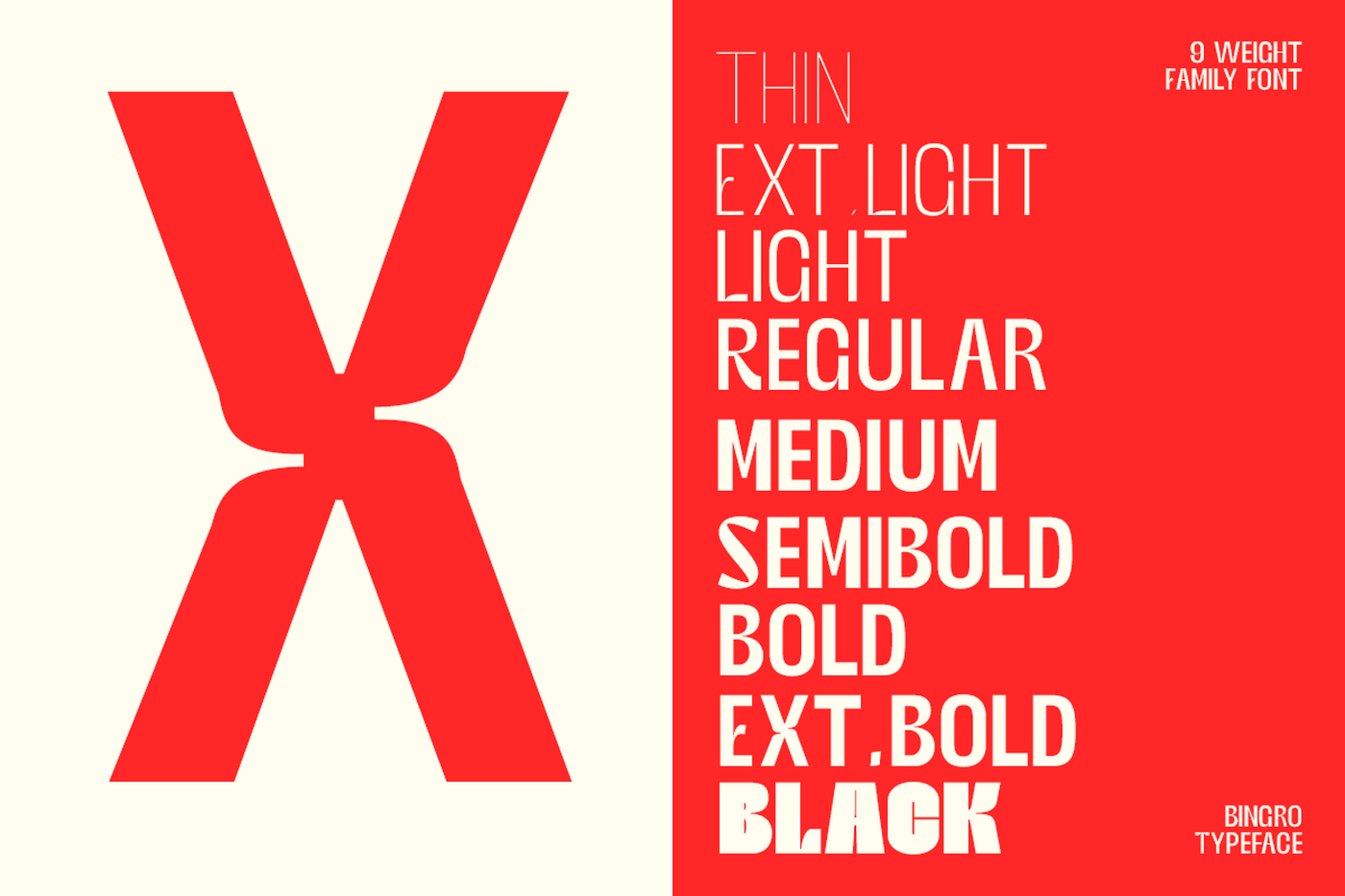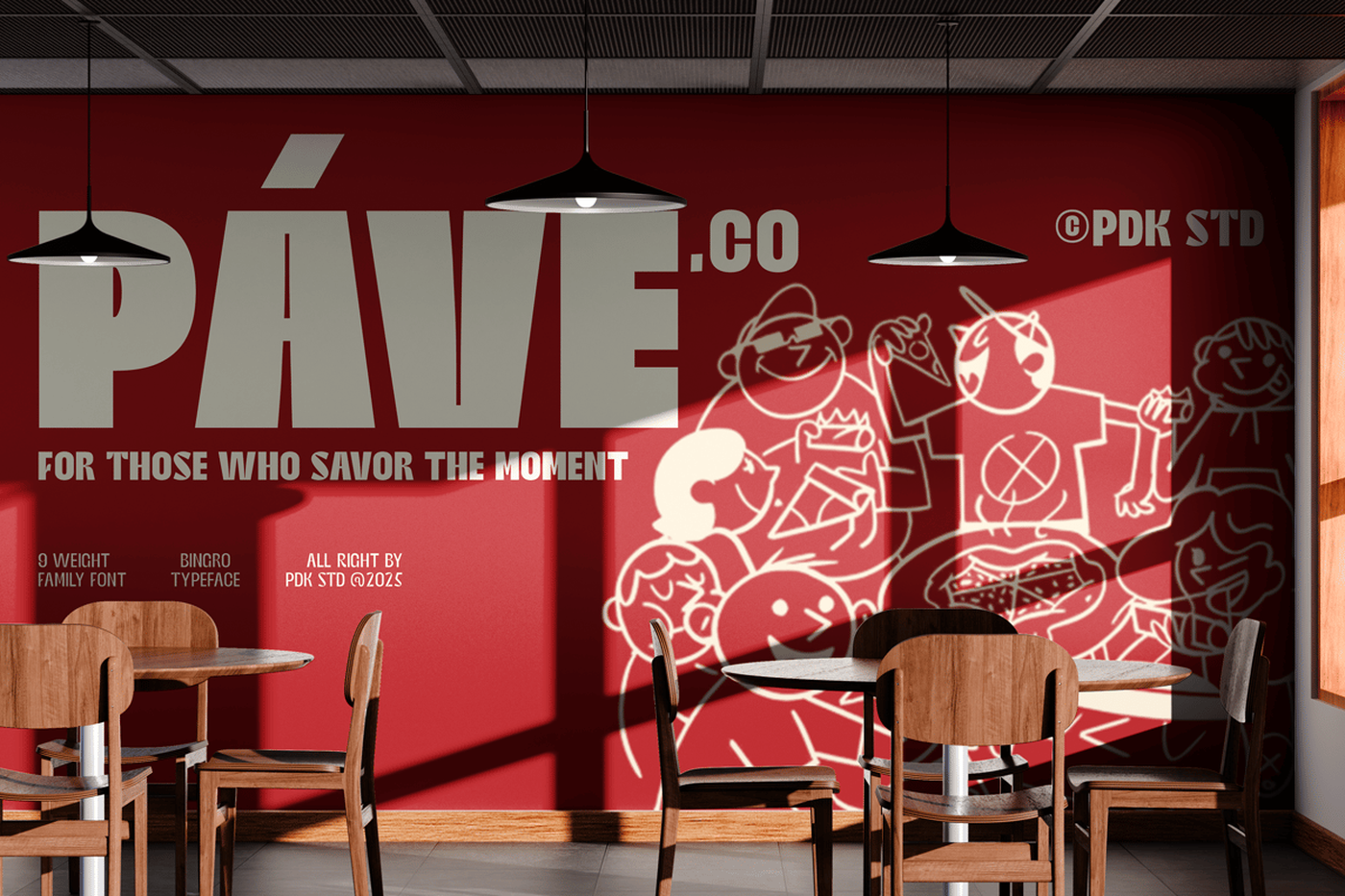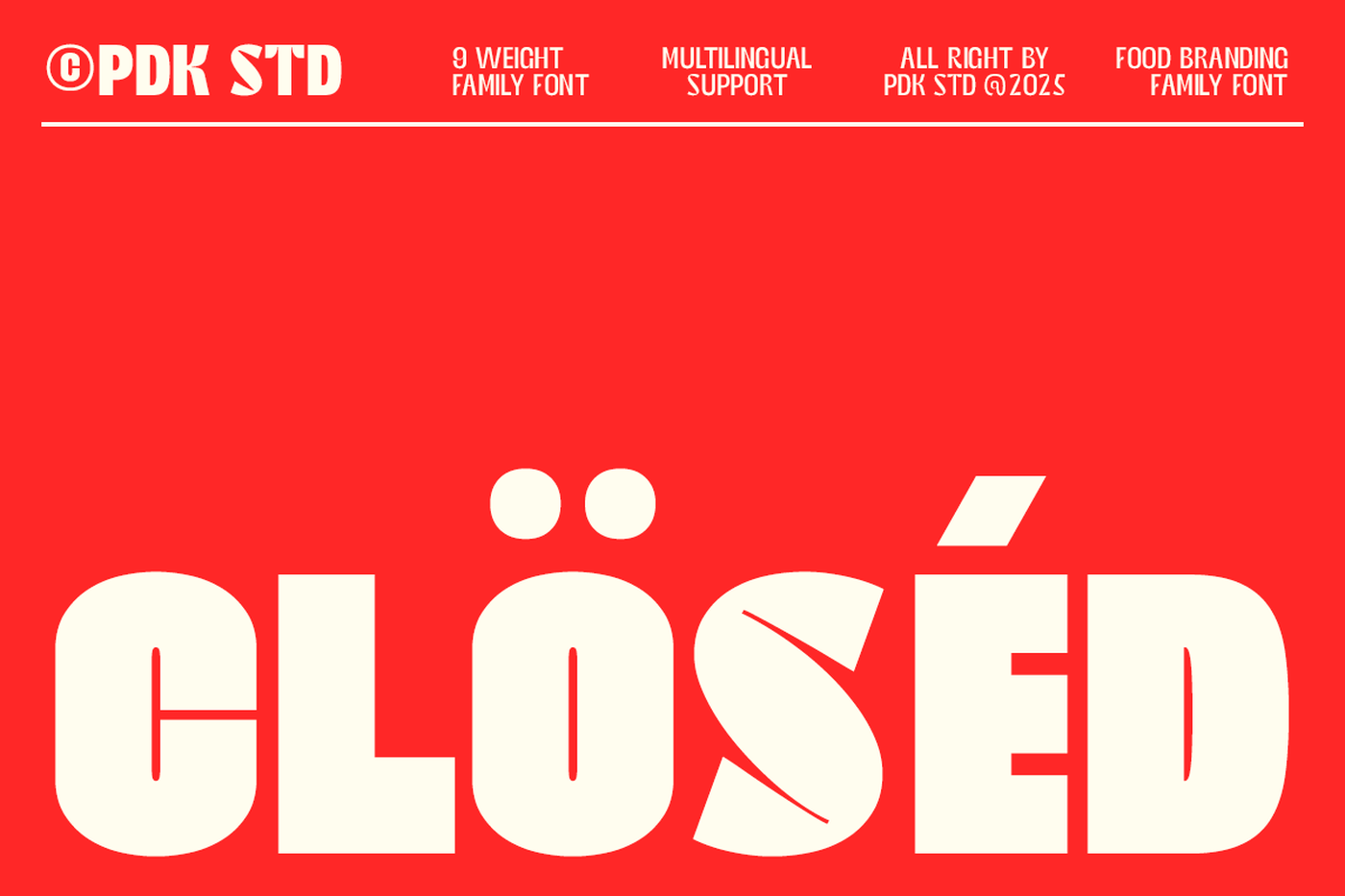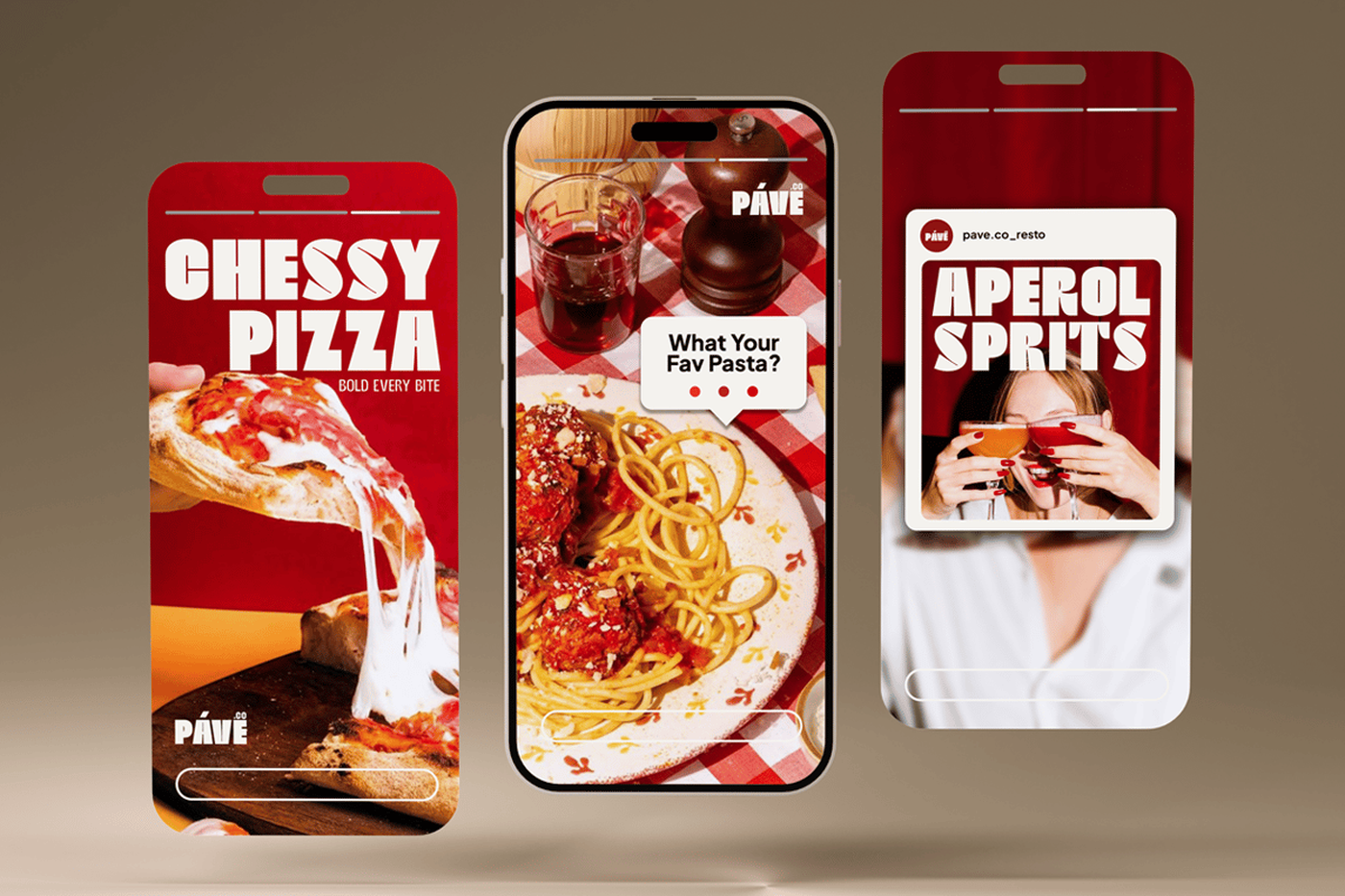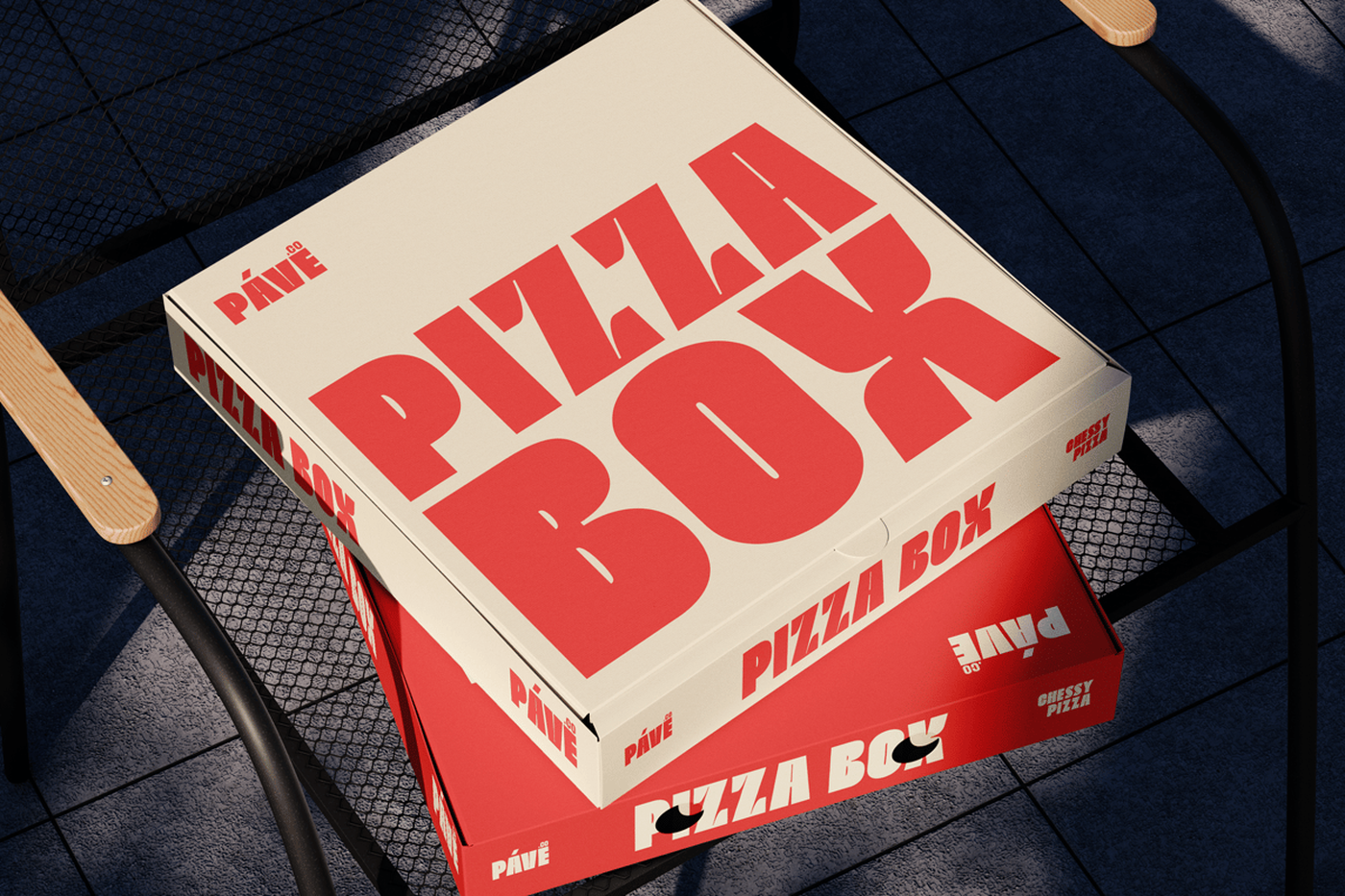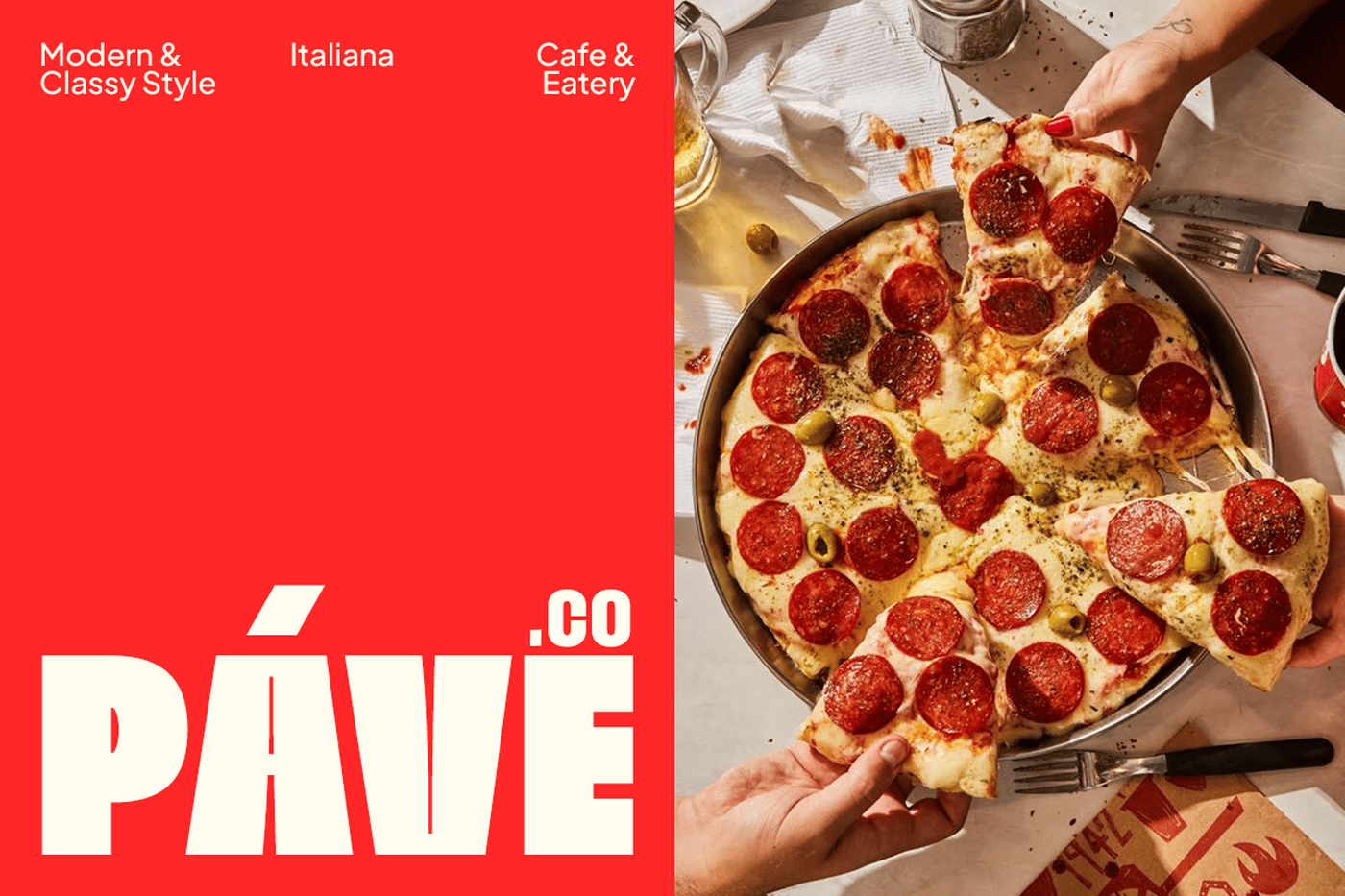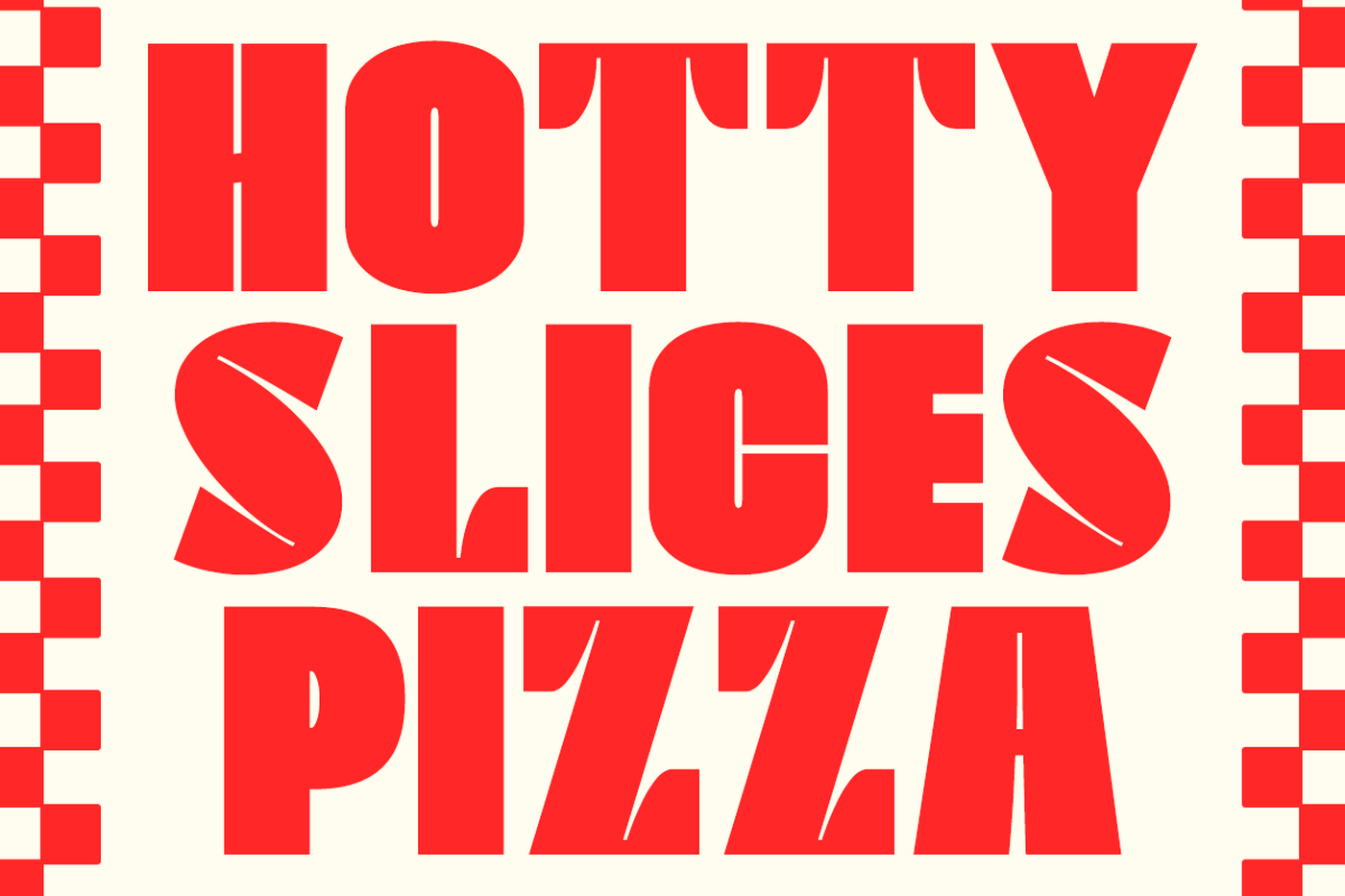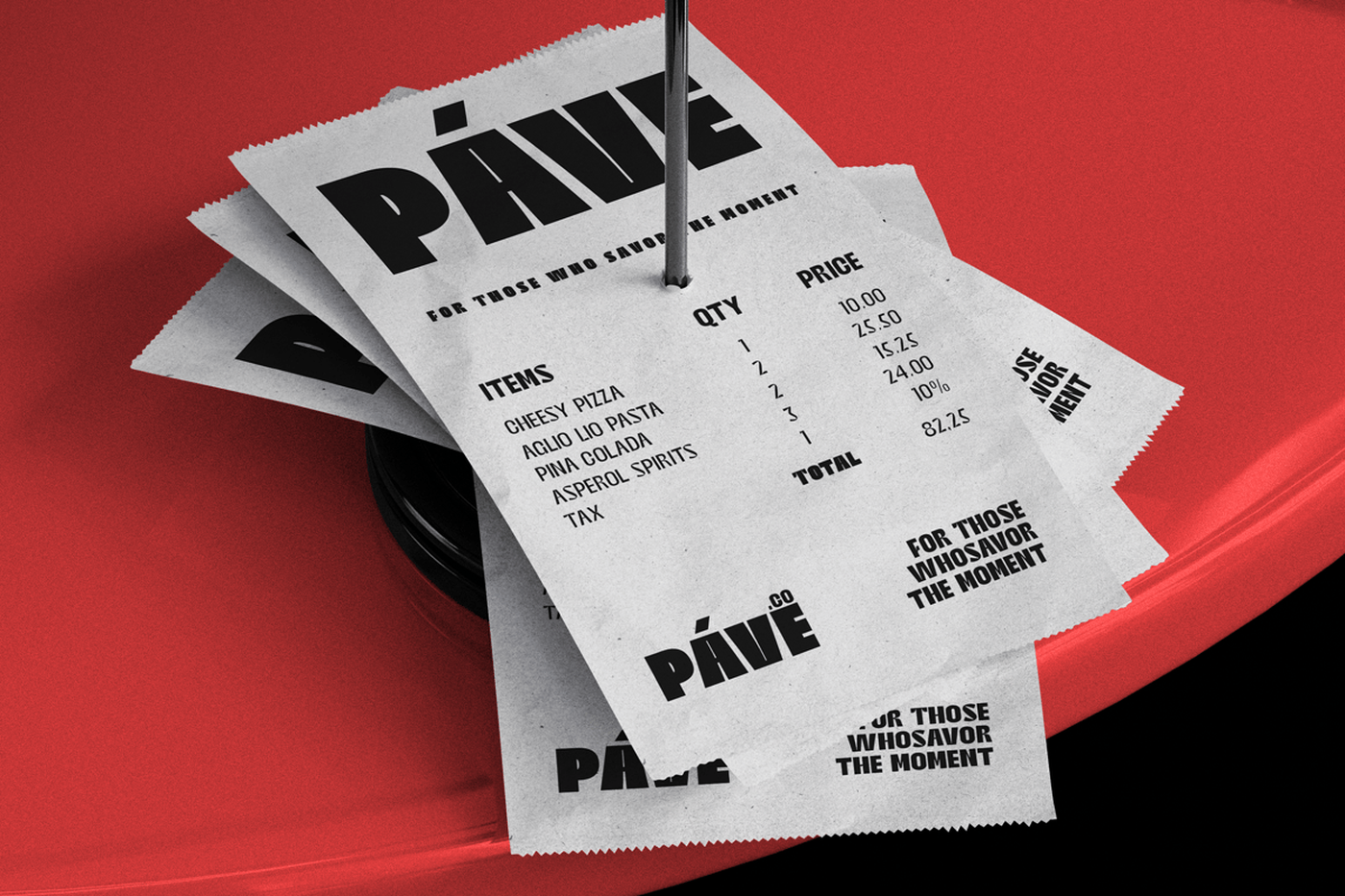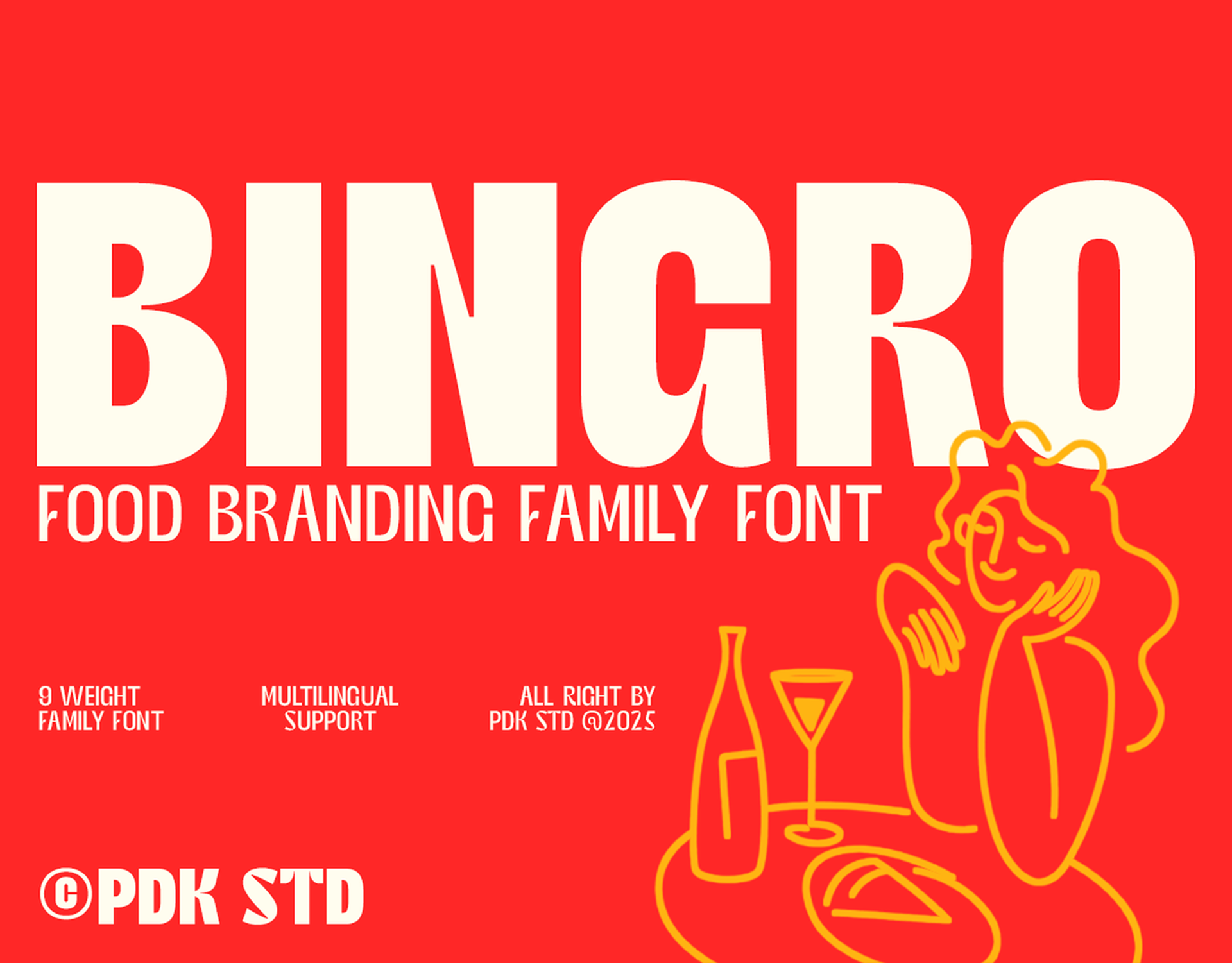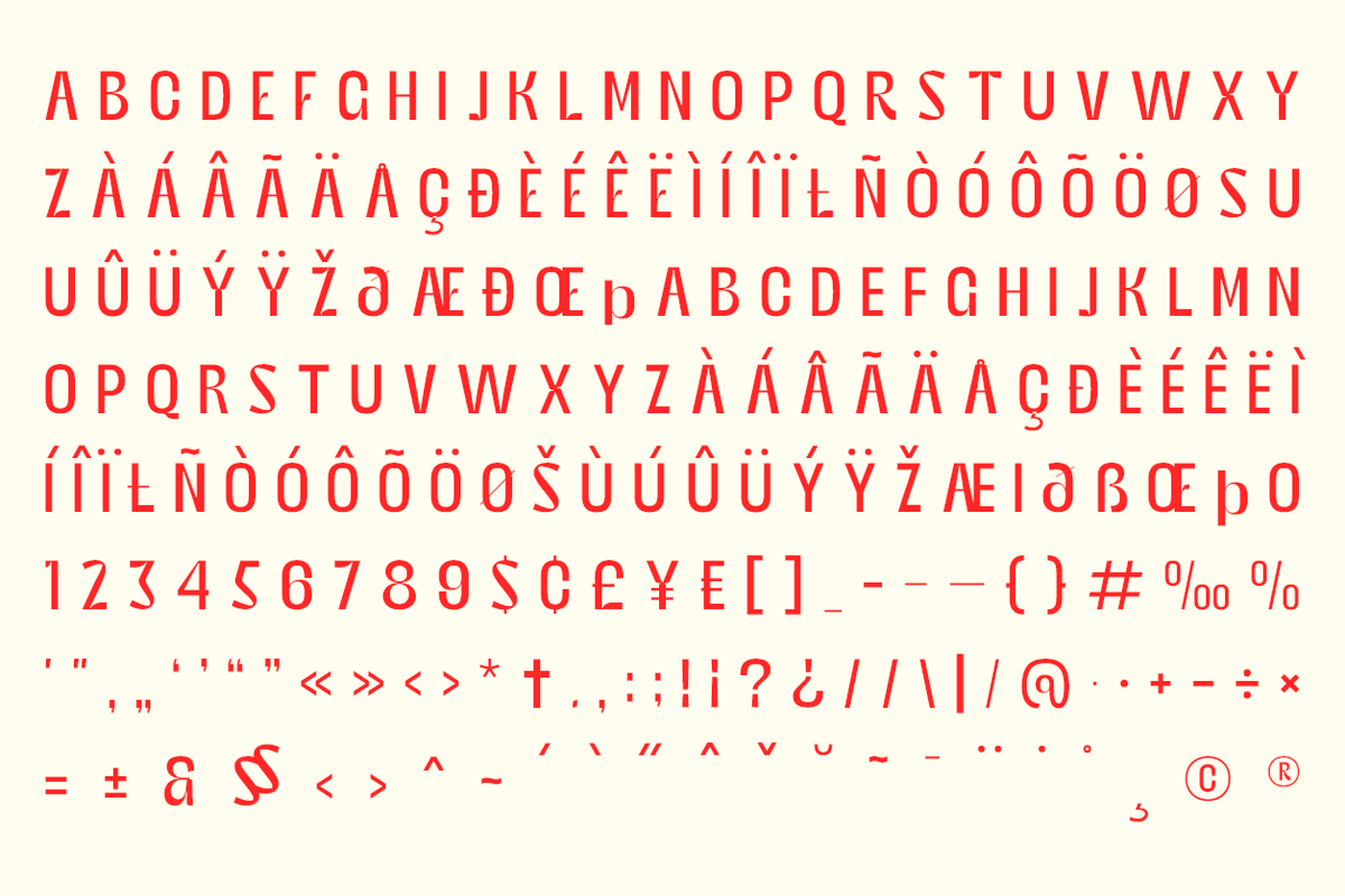
Bingro - Bold Font Family
Bingro is a bold and flavorful food branding family font designed to bring energy, warmth, and personality to your visual identity. Its chunky shapes, soft curves, and eye-catching forms create a fun and appetizing look—perfect for restaurants, cafés, fast-food brands, packaging, street food stalls, posters, and social media branding. This family includes 9 expressive styles — Thin, Extra Light, Light, Regular, Medium, Semi Bold, Bold, Extra Bold, and Black, allowing you to build flexible typographic systems for menus, signage, storefronts, and promotional materials.